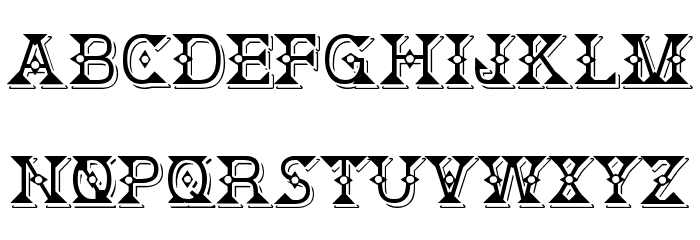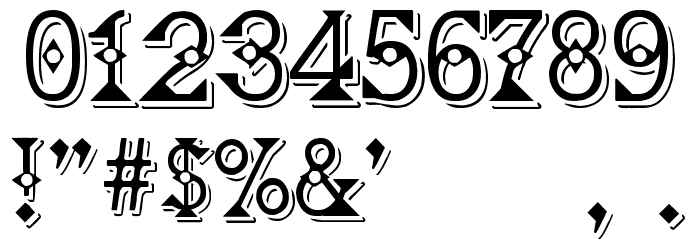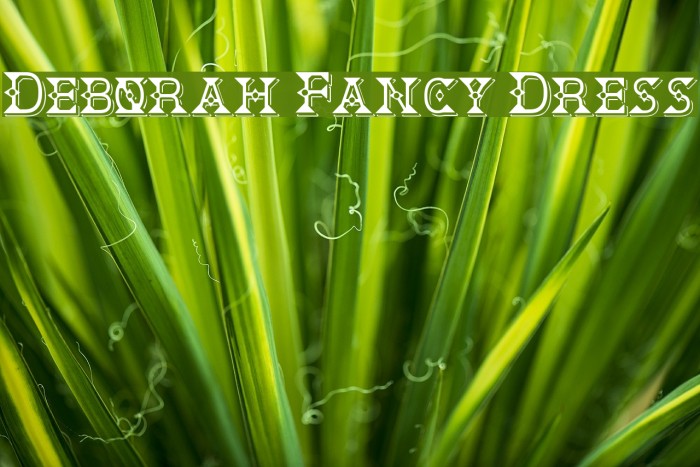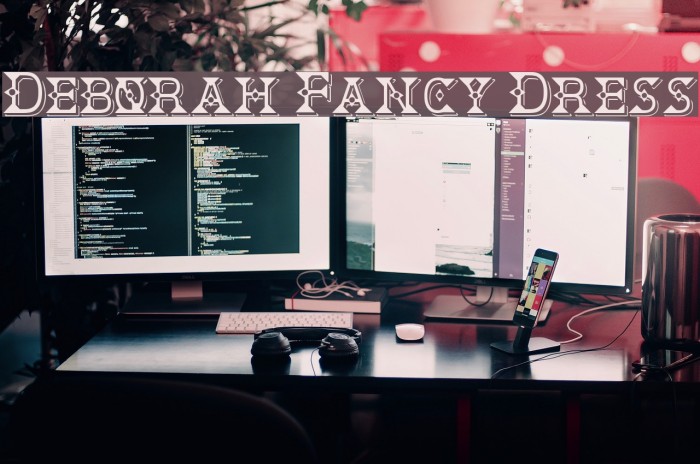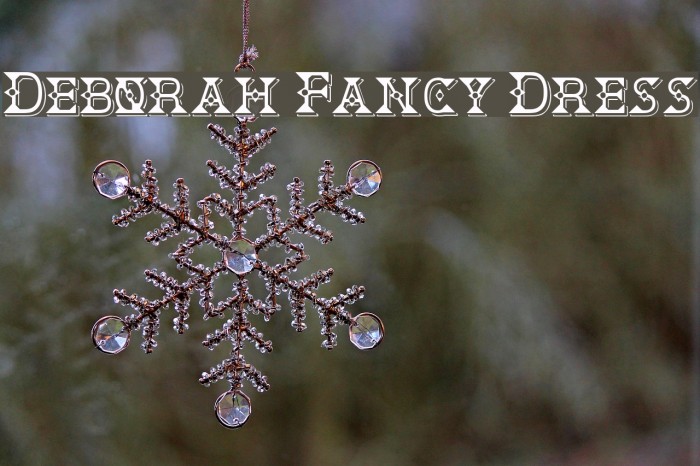
Deborah Fancy Dress Font
This font features a bold and decorative style with a unique blend of geometric shapes and intricate patterns. The characters are designed with a three-dimensional effect, giving them a striking appearance. The uppercase letters are particularly elaborate, with sharp angles and contrasting lines that create a sense of depth. The numerals and special characters maintain this ornate style, ensuring consistency throughout the typeface. The font's distinct personality makes it suitable for eye-catching designs where a touch of elegance and creativity is desired.
A bold, decorative font with geometric and intricate patterns.